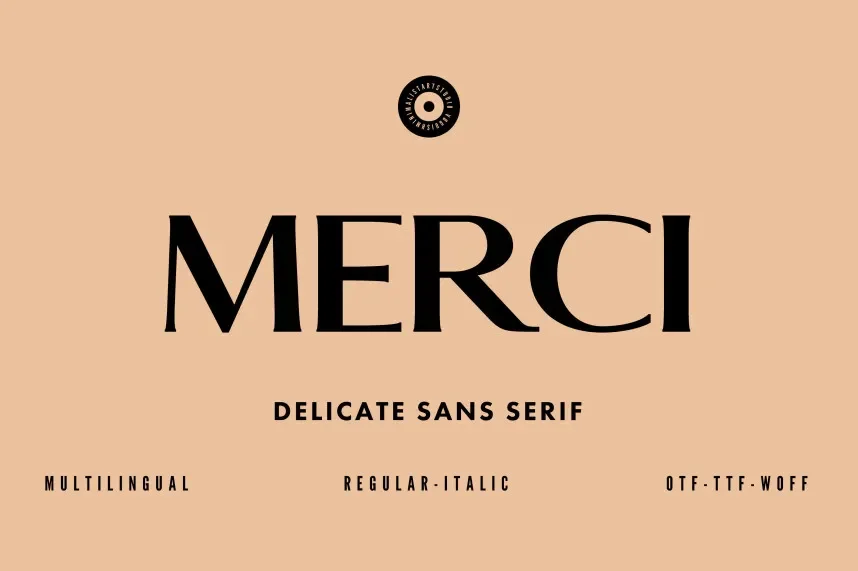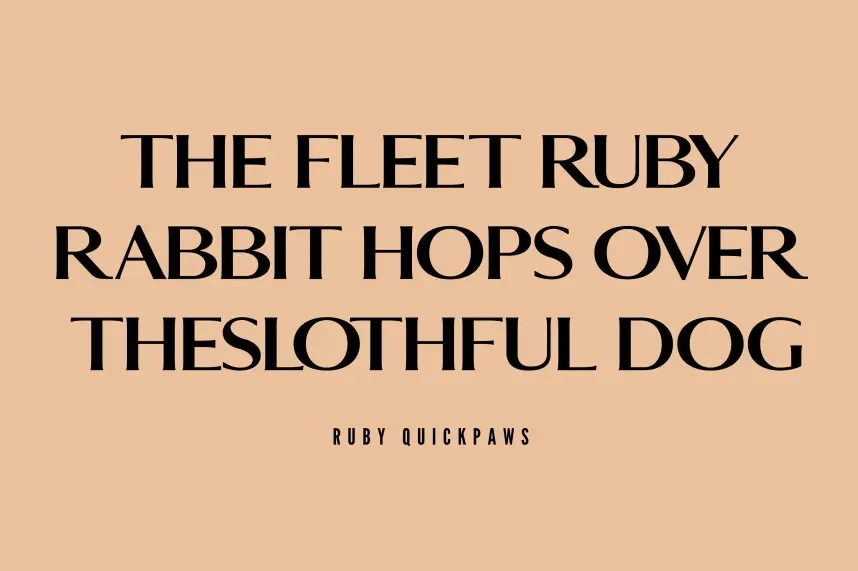
Merci Font is a serif typeface designed to address readability issues in editorial layouts, branding, and printed materials. It supports consistent letter spacing and clear structure for designers working on books, stationery, and professional communication where text clarity matters.
Merci features balanced stroke contrast, defined serifs, and open counters that improve legibility in both print and digital formats. The font includes uppercase and lowercase letters, numerals, and standard punctuation. Its classic serif construction supports longer reading while maintaining a professional appearance suitable for logos and headings.